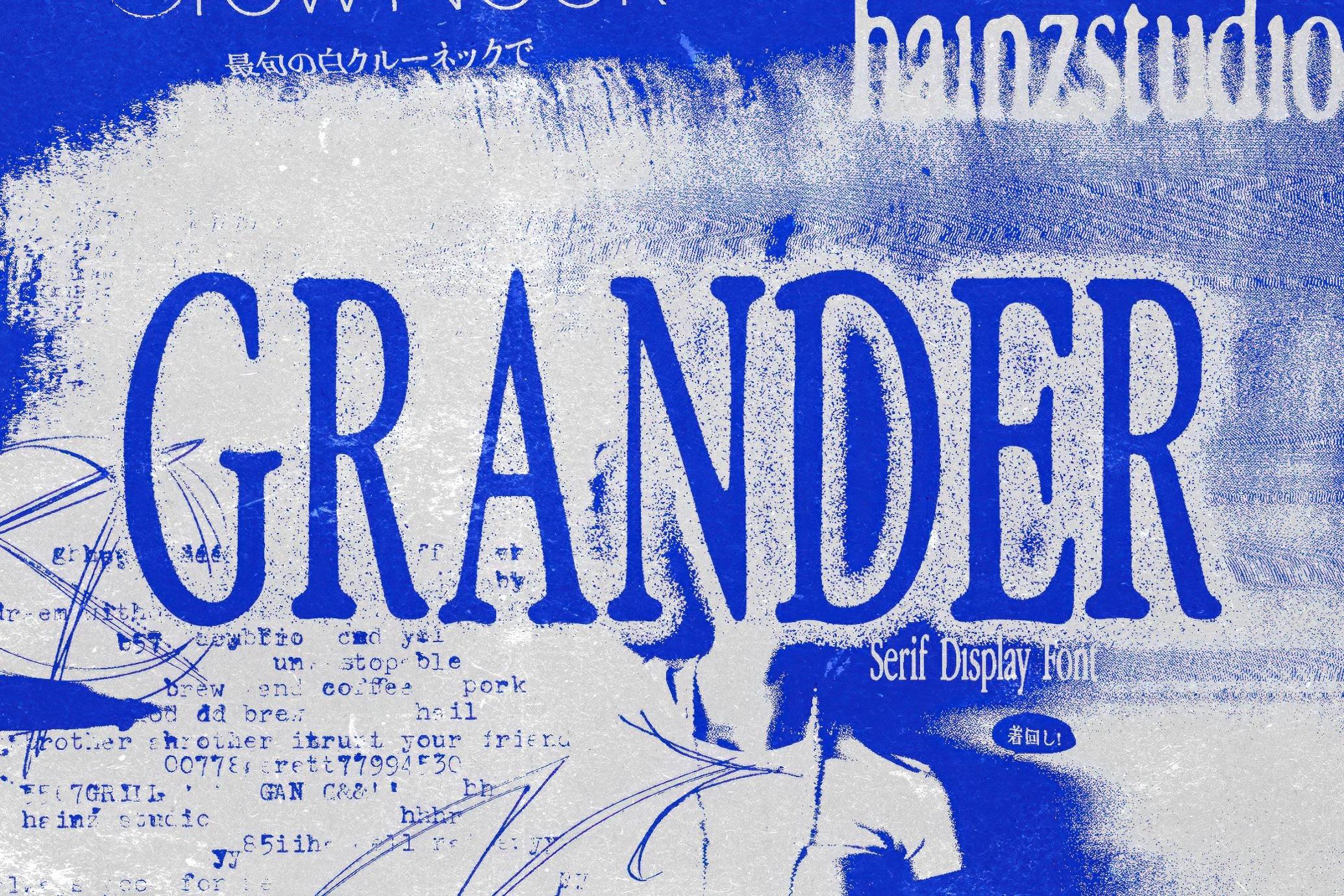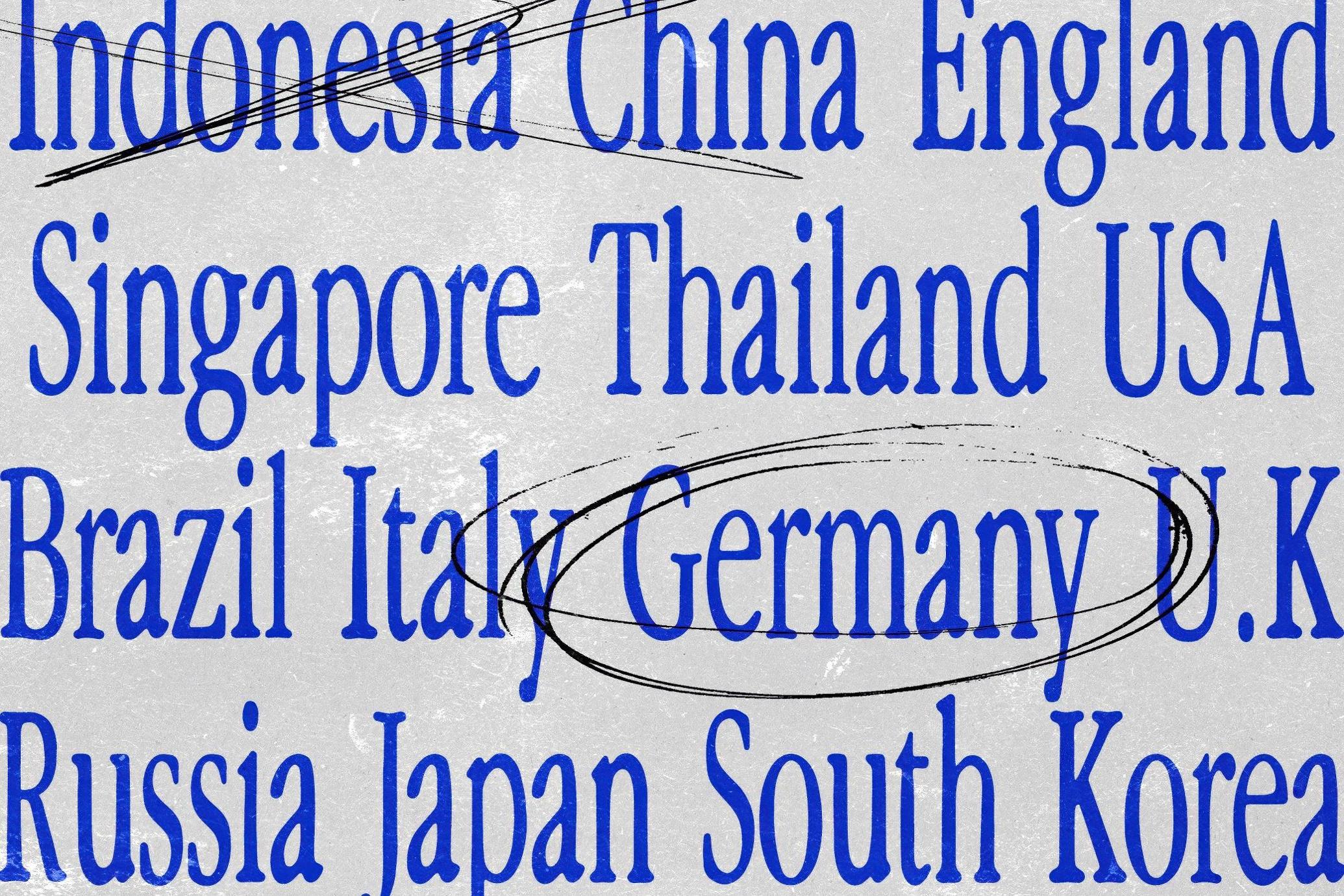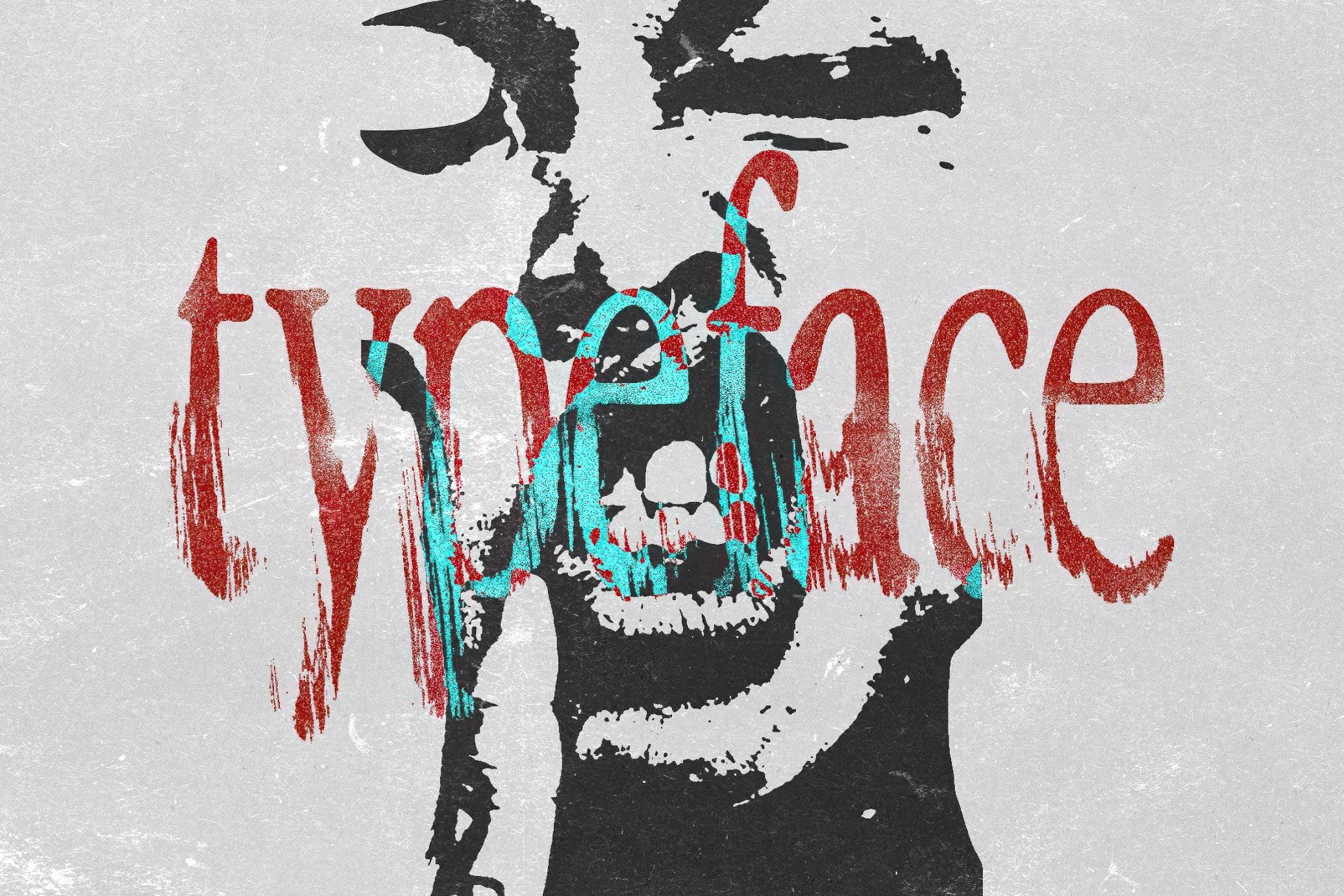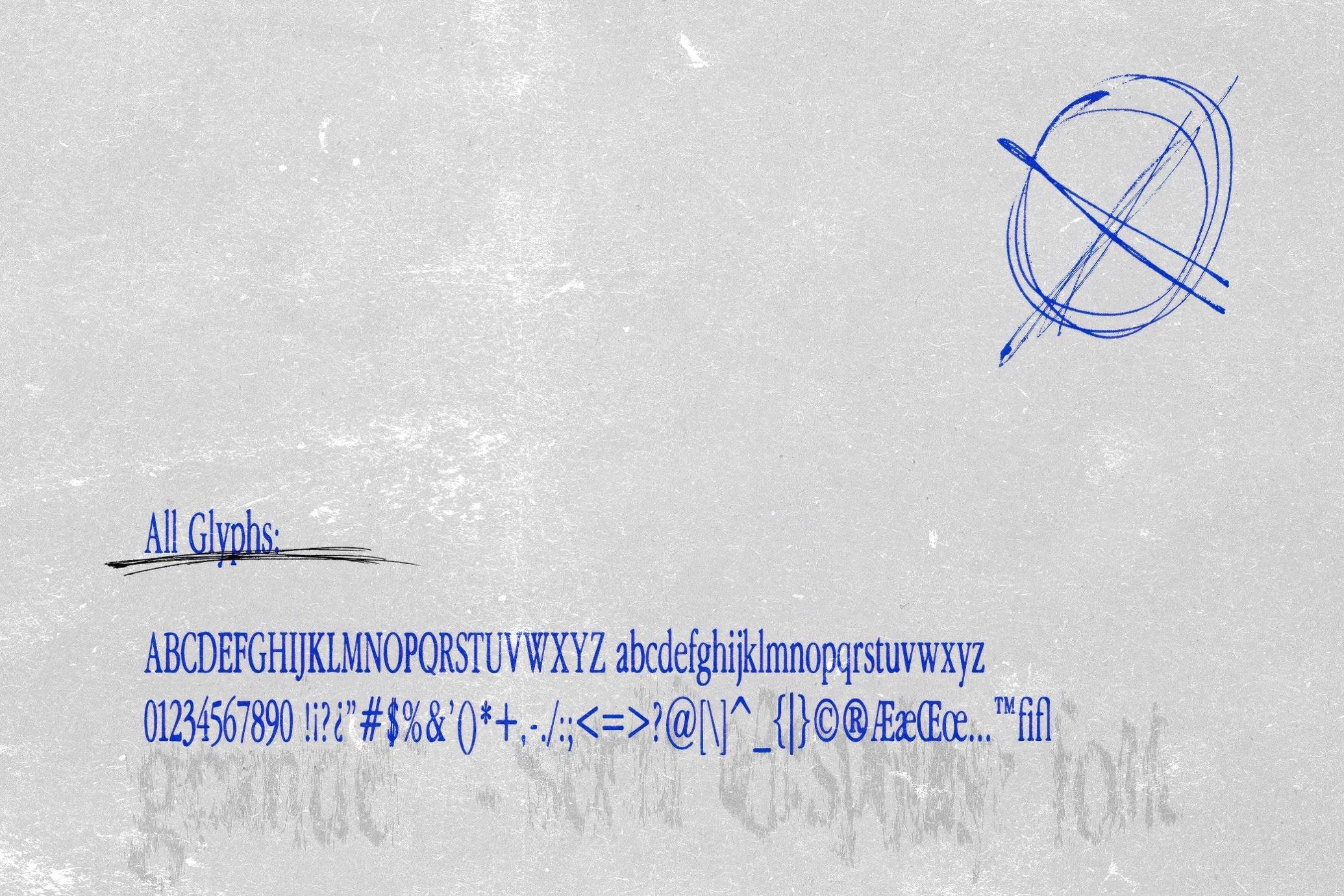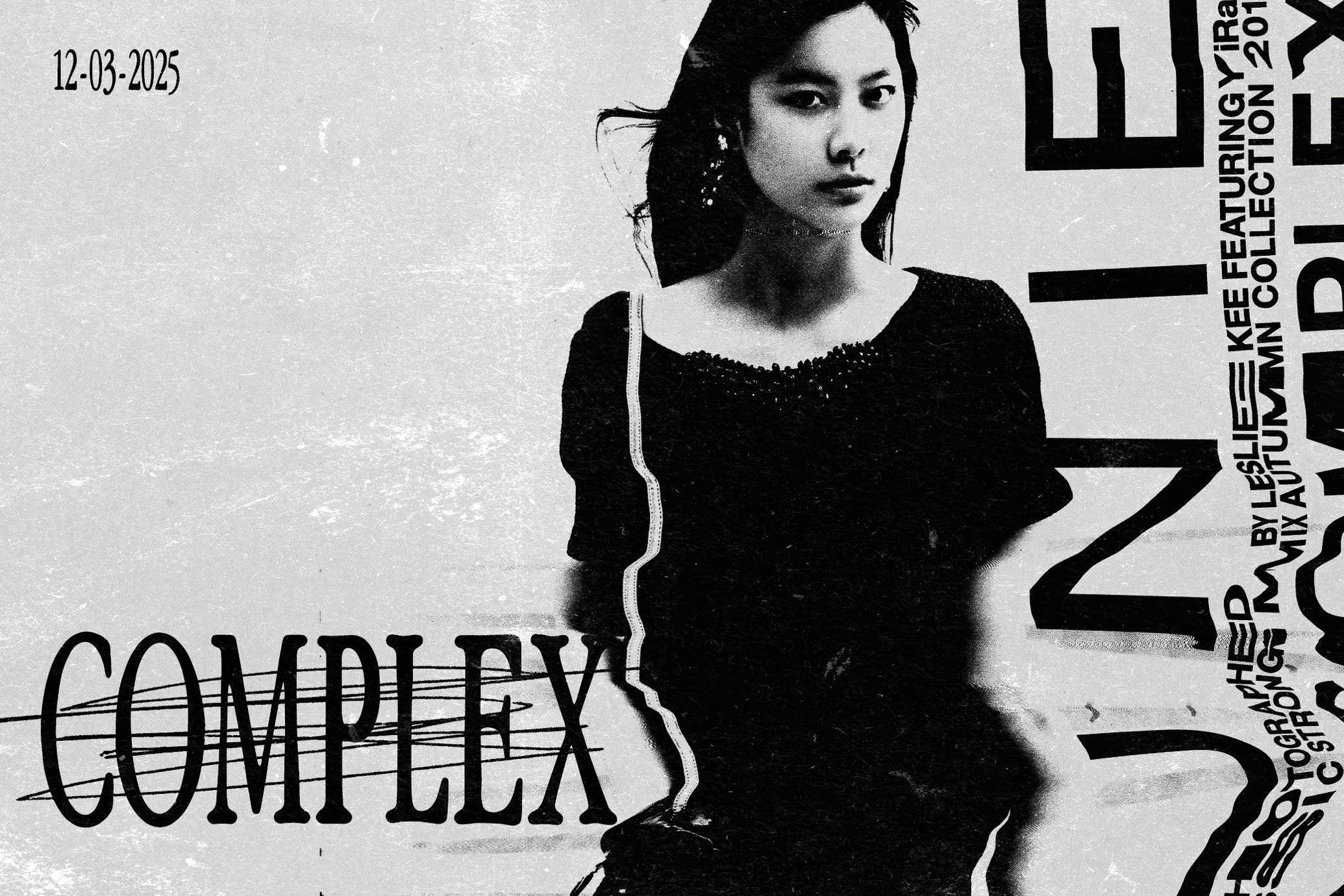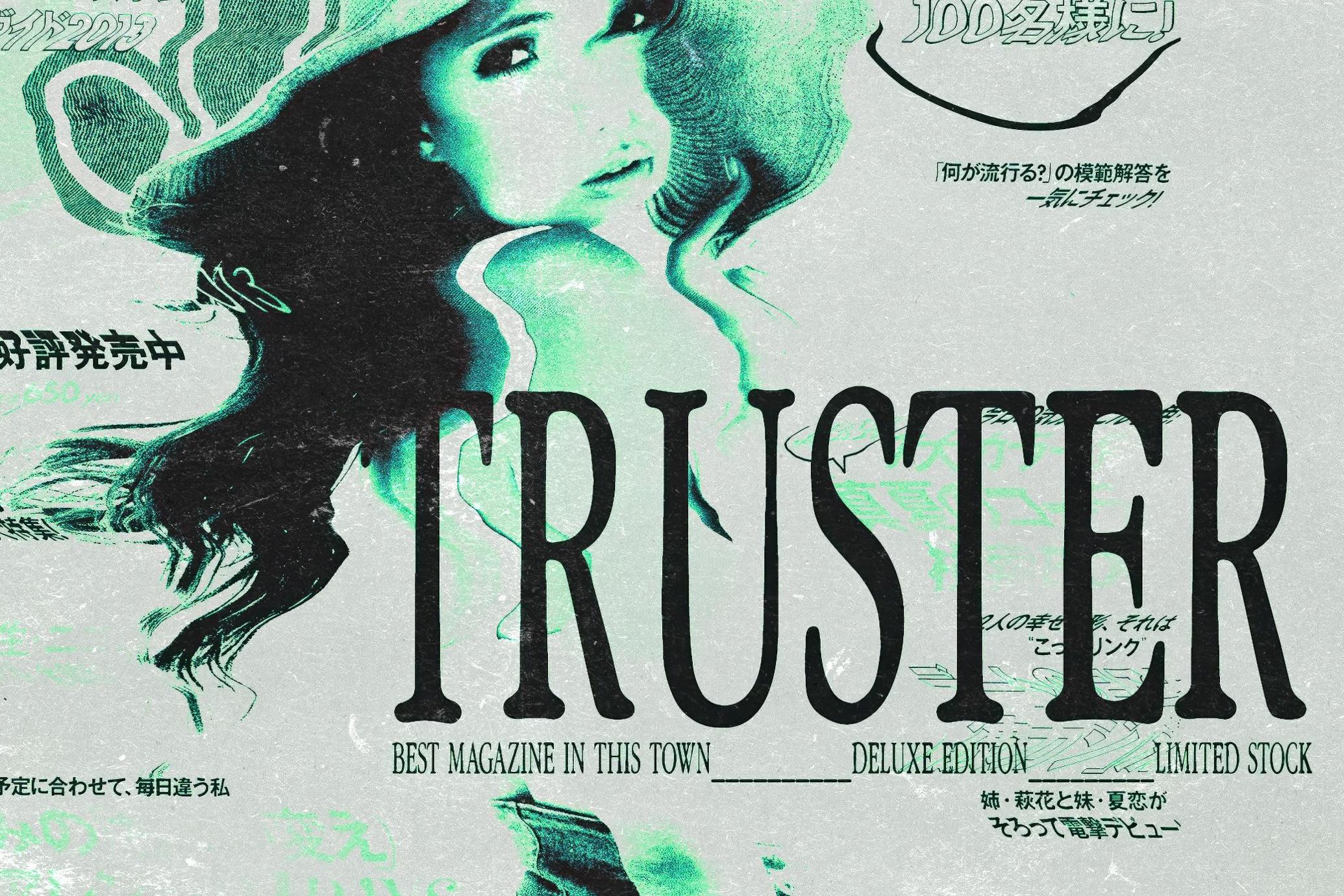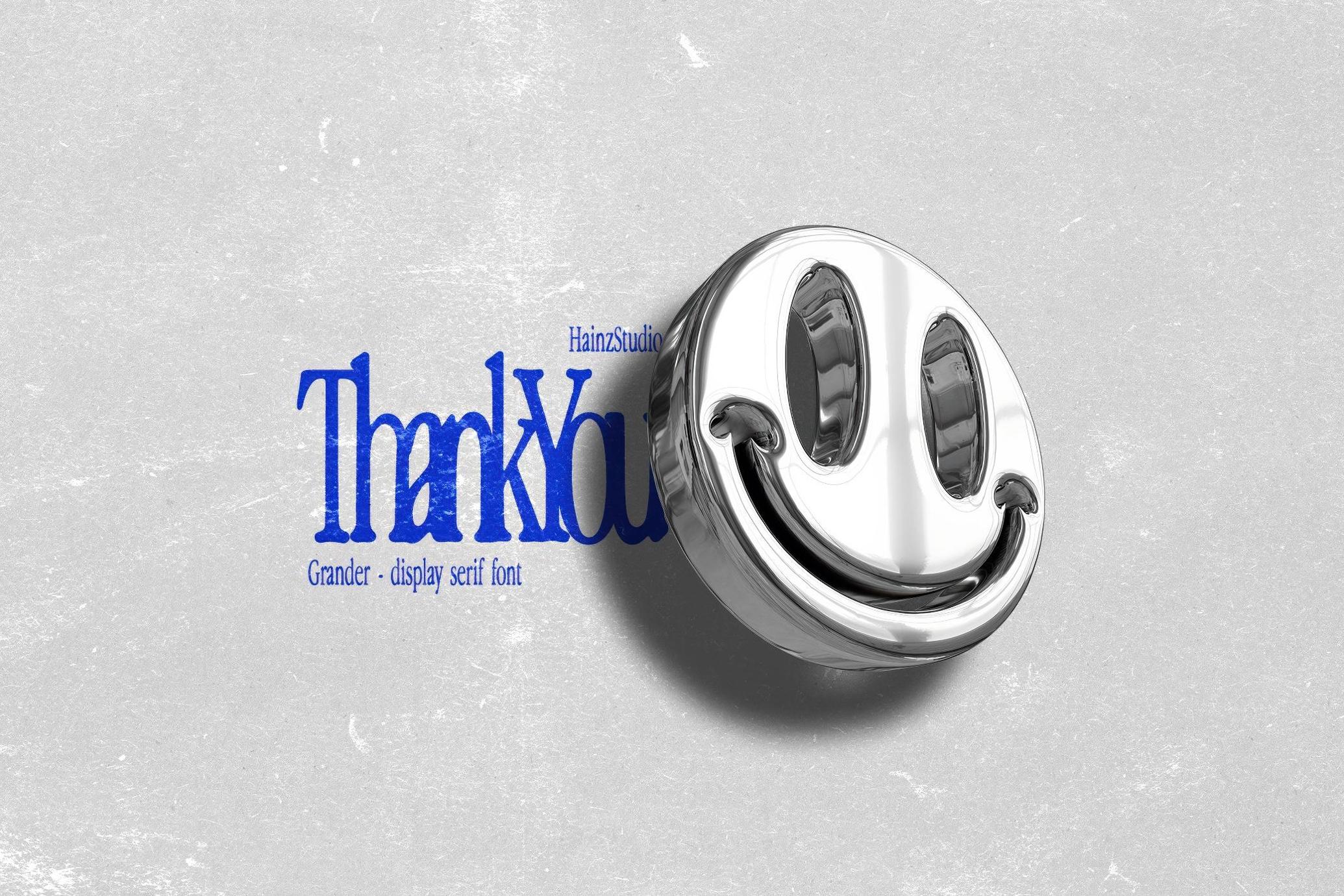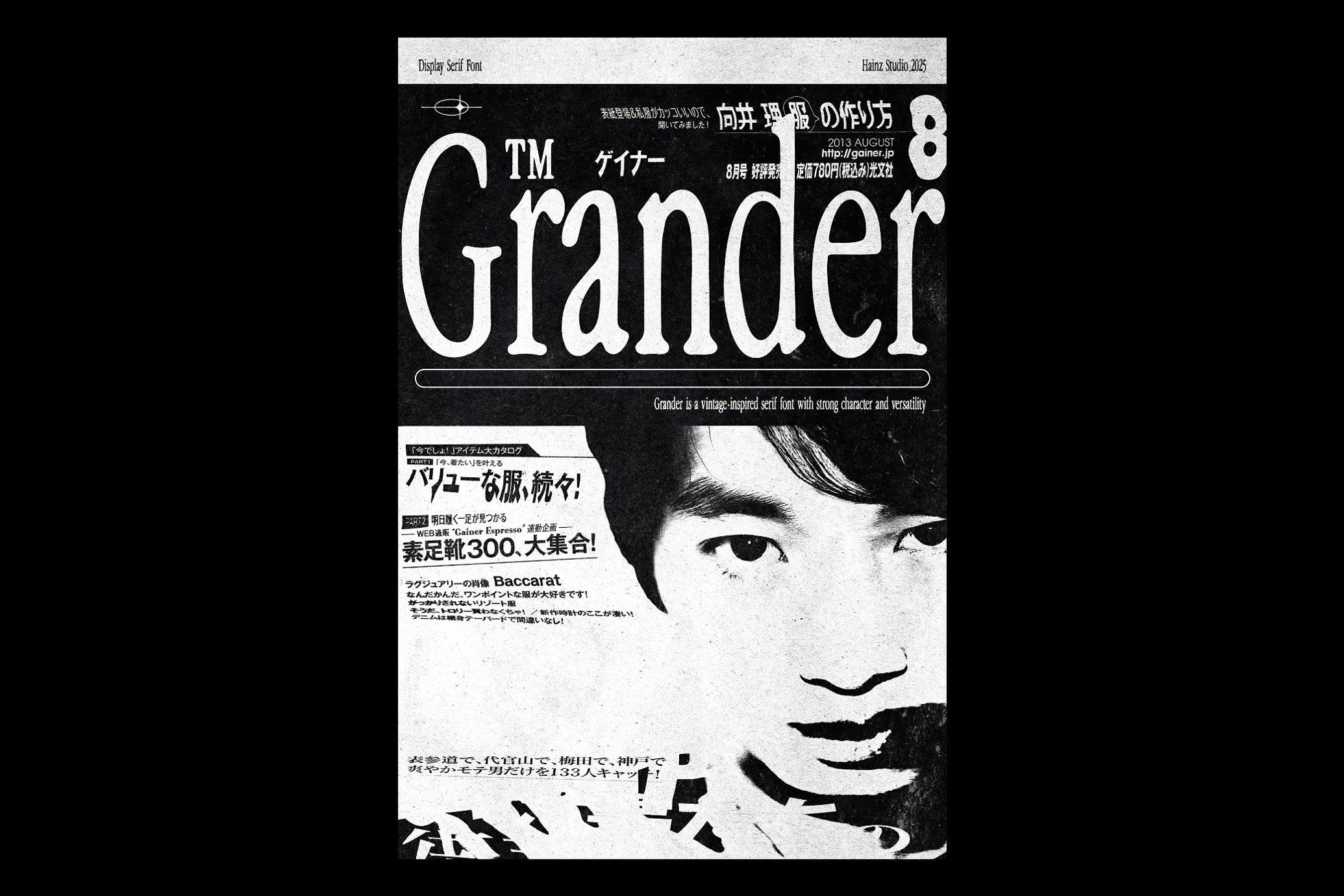
Grander – Display Serif Font
Grander
Grander taps into eternal vintage serif appeal with a crisp, stately presence that works across eras, from typewritten archives to contemporary editorials. It’ll be of help when crafting identity work for a heritage-inspired brand, laying out a magazine spread, or giving a nod to retro-futurism in digital content. Includes uppercase, lowercase, numerals, punctuation, and selected ligatures. The letterforms are balanced and thoughtfully spaced to ensure readability while retaining their charm.